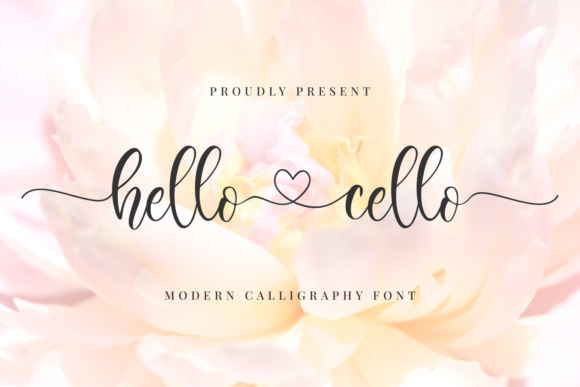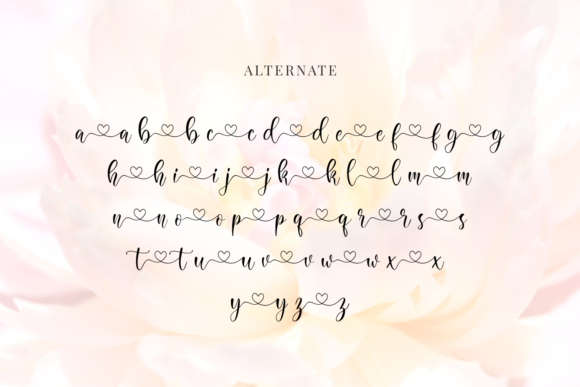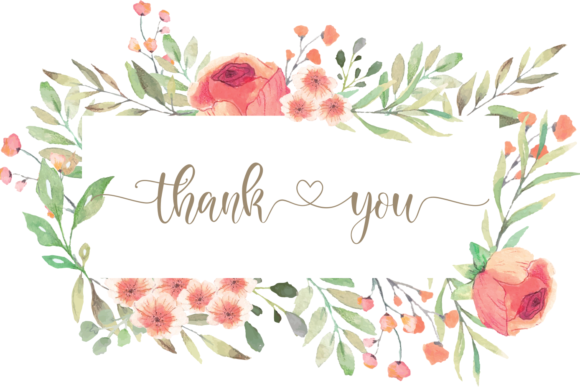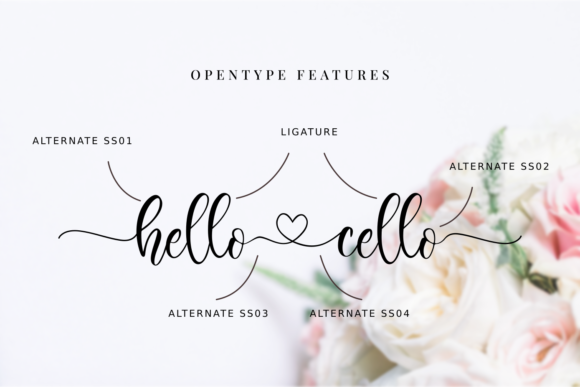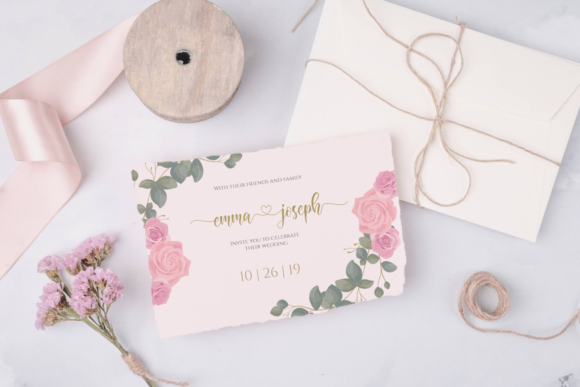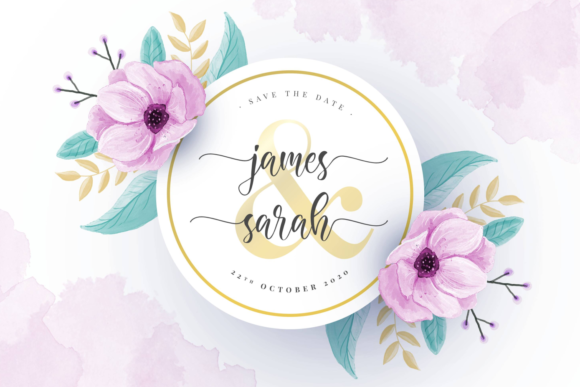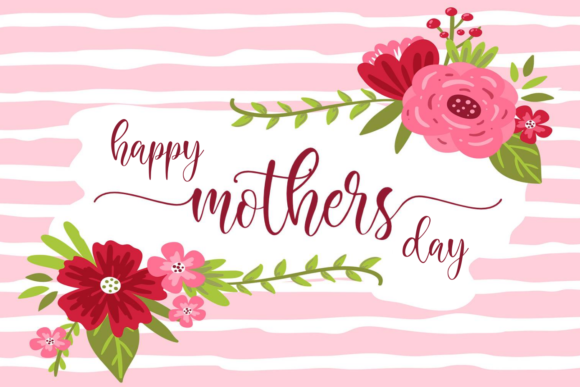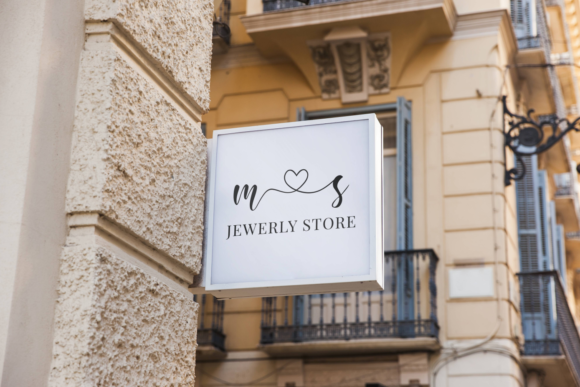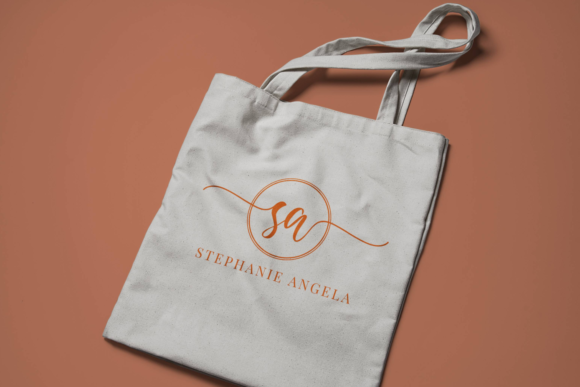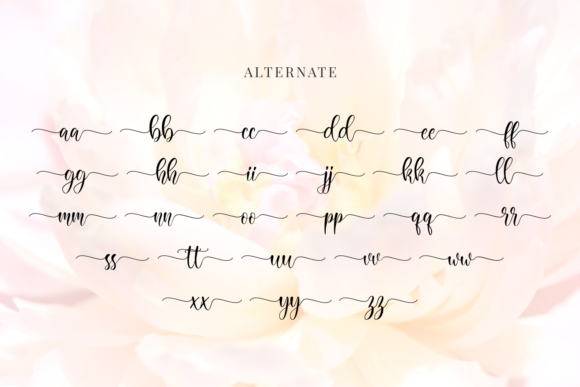
Hello Cello Font
About Hello Cello Font
Hello Cello is a modern handwritten font with amazing heart-shaped swashes. Fall in love with its authentic feel and use it to create gorgeous wedding invitations, beautiful stationary art, eye-catching social media posts, and cute greeting cards.